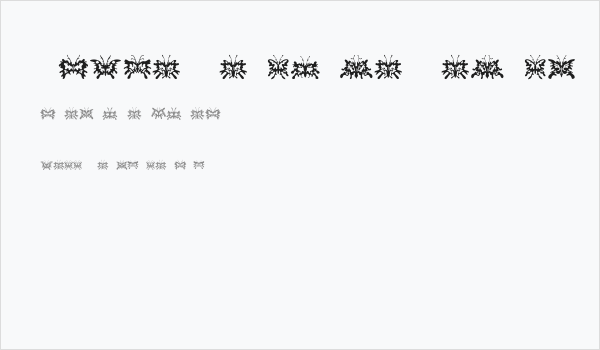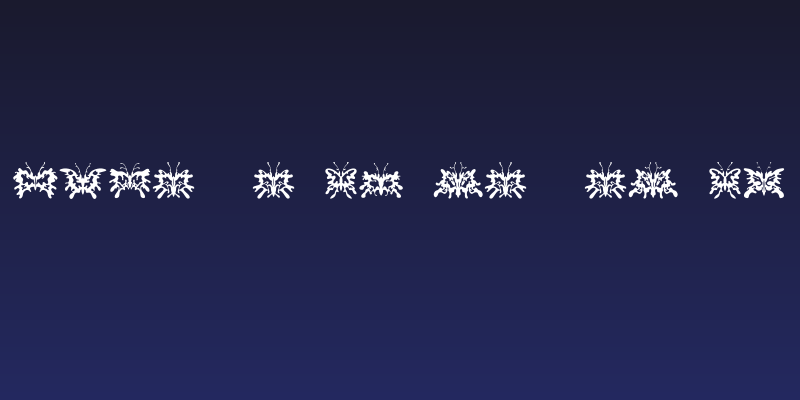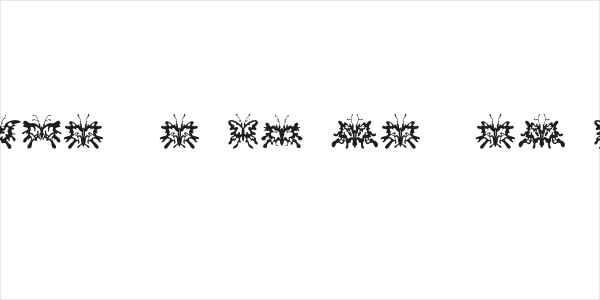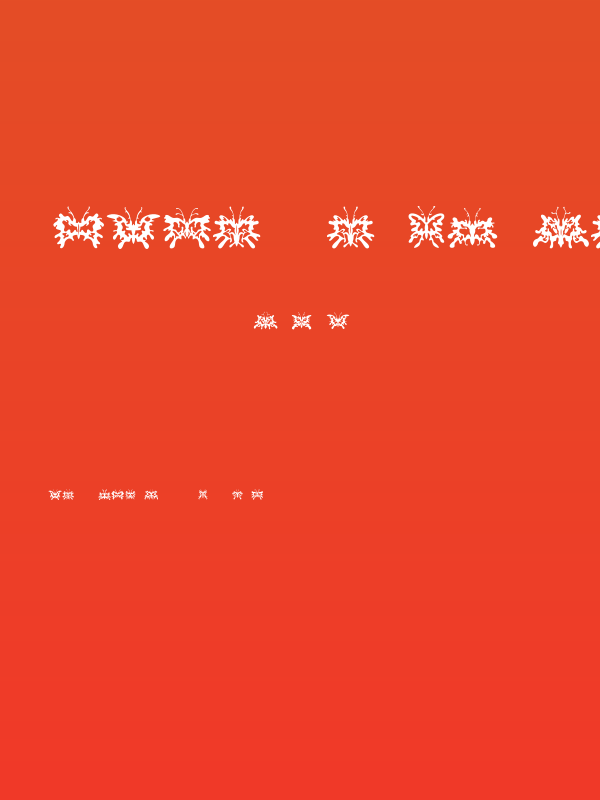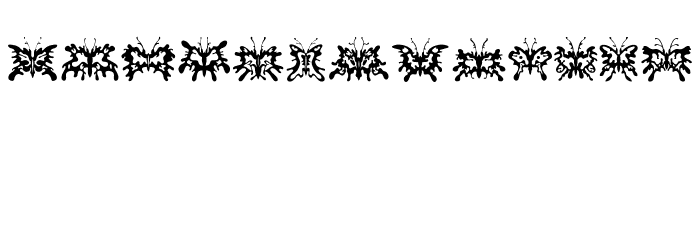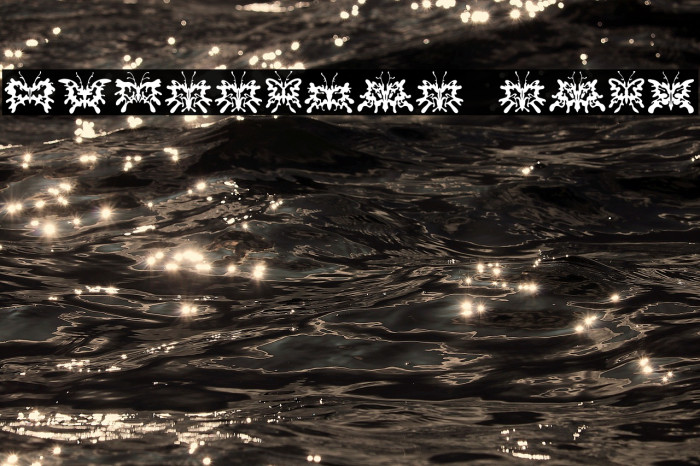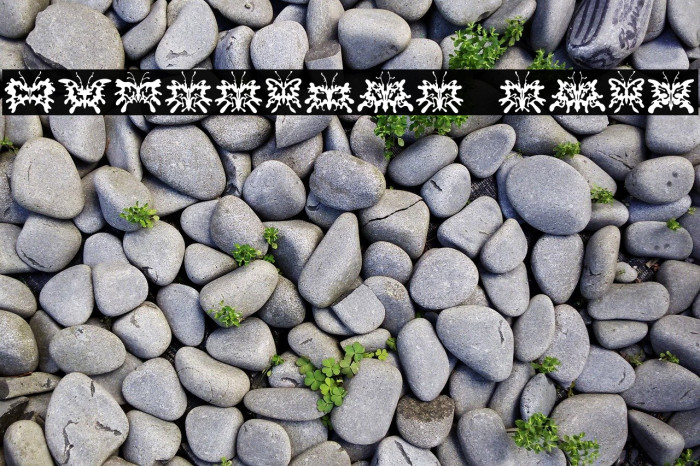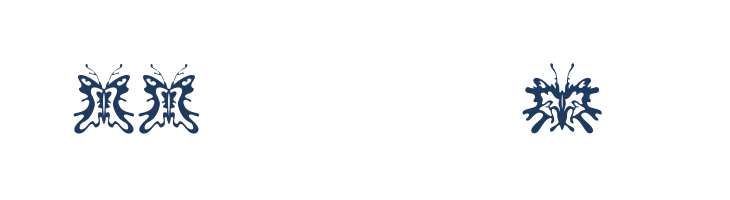
Schmetterlinge Regular Font
This decorative font features intricate butterfly designs for each character, creating a whimsical and artistic appearance. The characters are composed of symmetrical butterfly shapes, with detailed wings and antennae, providing a unique and ornamental style. The font is highly decorative, making it suitable for creative projects that require a touch of elegance and nature-inspired aesthetics. The intricate details in each character suggest a handcrafted feel, perfect for designs that aim to capture attention and convey a sense of beauty and creativity.
| Proposed Projects | Ideal for invitations, greeting cards, nature-themed posters, and decorative headings. |